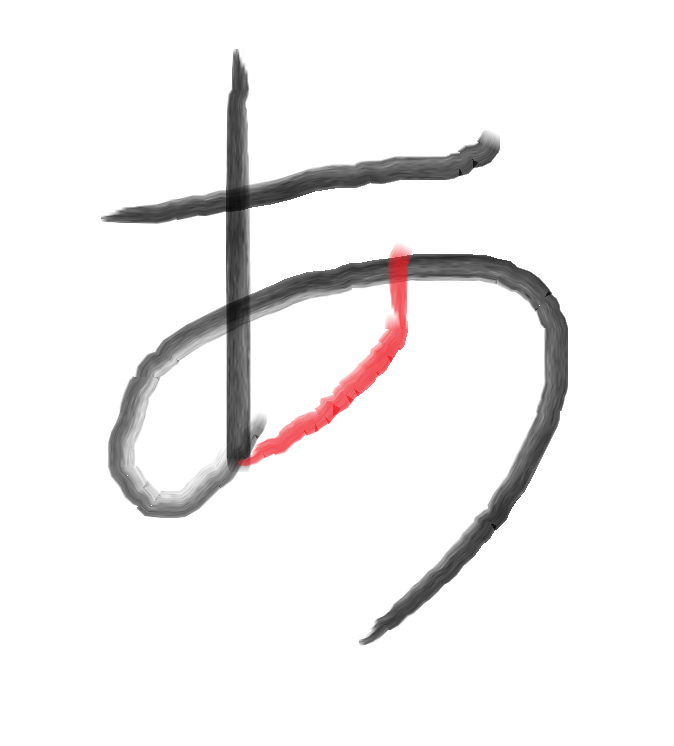
anypix 7x5 unicode v5.6
by Katrina Cigarette (fontcreator2020)
a pixelated unicode font that can be read at small sizes.
14 sept '22, 17:47:11 hkt / massive update. added coptic, spacing modifier letters and improved readability.
v0.1: Latin glyphs
v0.2: Greek glyphs
v0.3: Added Dwiggins digits (Base-12) Dek and El in place of TURNED DIGIT TWO and TURNED DIGIT THREE.
v0.4: Added Russian glyphs.
v0.5: Added U+218C to U+218F.
v0.51: Added Katakana (UNFINISHED!)
v0.6: Finished Katakana
v0.7: Added Katakana Archaic Yi, Ye, Wu
I see you're taking inspiration from me, more specifically my 5x7 Type 2 and Pixel Sans fonts. (Feel free to check them out.) Anyway:
- Some katakana are off. Ta is almost unreadable, he could be shorter, and ro could be taller or have "legs".
- 218C to 218F are digits of my creation representing ten, thirteen, fourteen, and fifteen in hexadecimal, used in conjunction with 218A and 218B (shaped as a turned 2 and turned 3, representing twelve and eleven). The Dwiggins dek should therefore be unified with 218C, and 218A should be a turned 2.
v0.71: Added U+1B000 and U+1B001
あ looks weird but k
Ochre, あ does not have the red line in this sample.
the あ in this font is a variant form of the original あ, shown in this image.